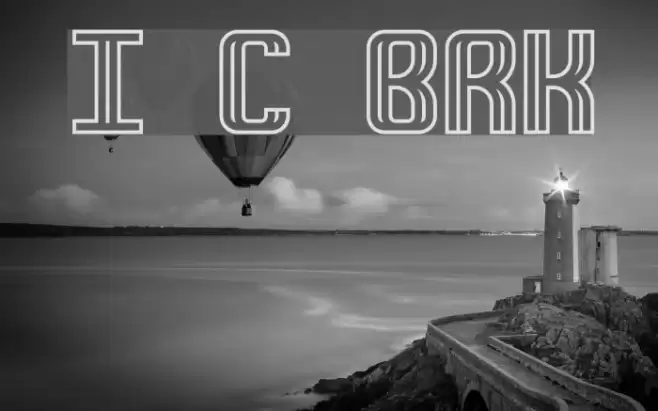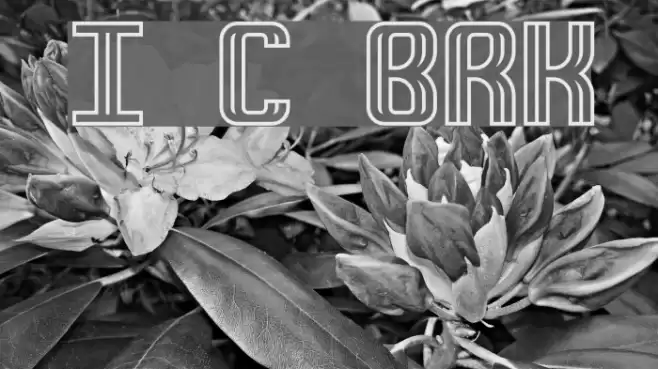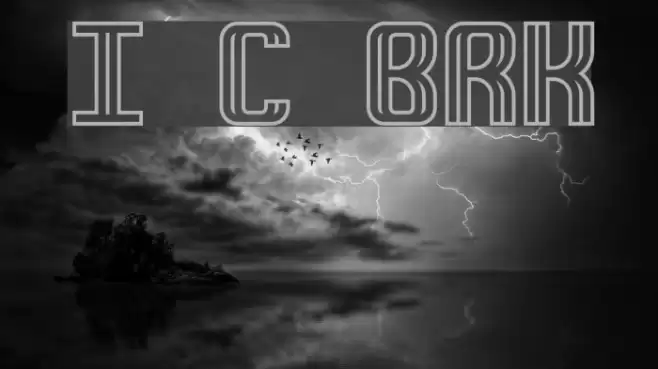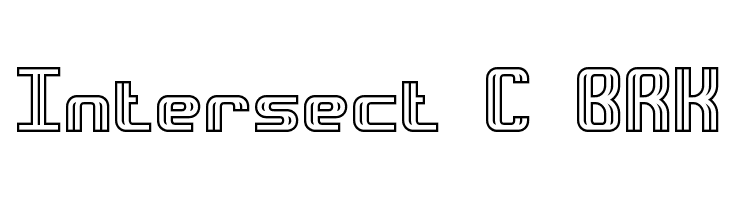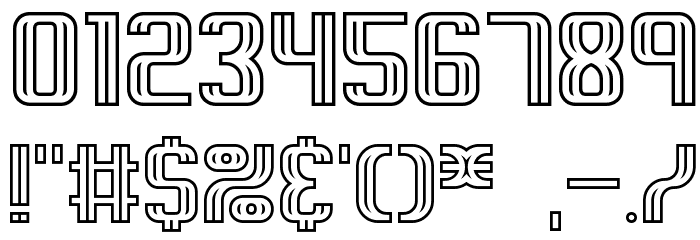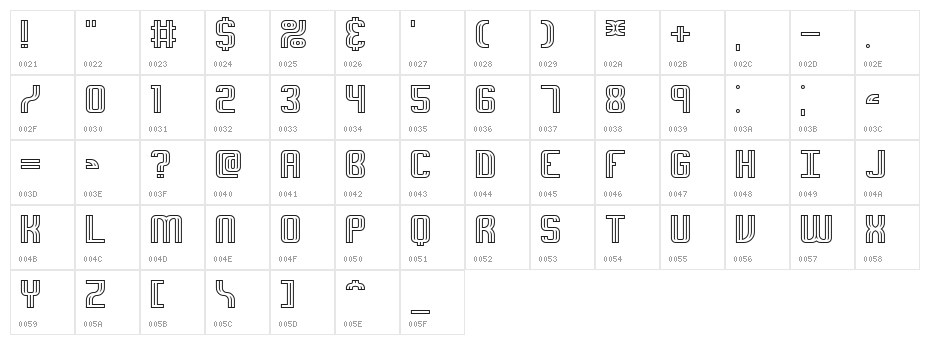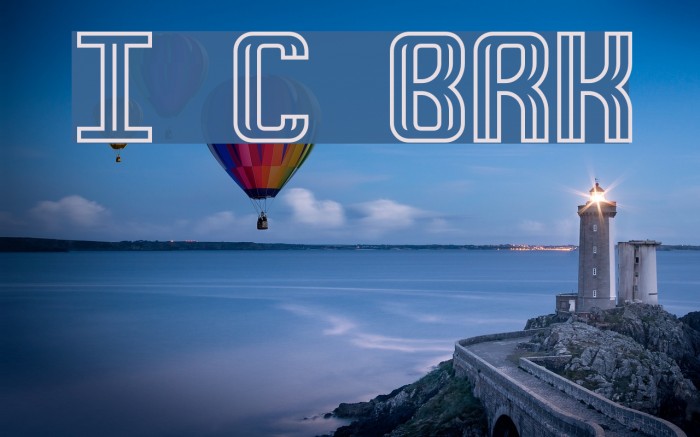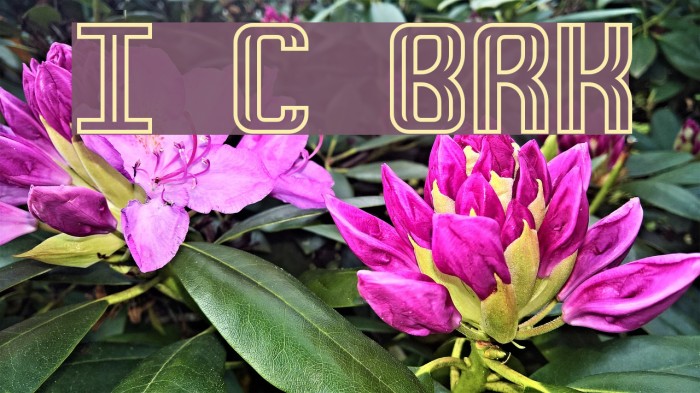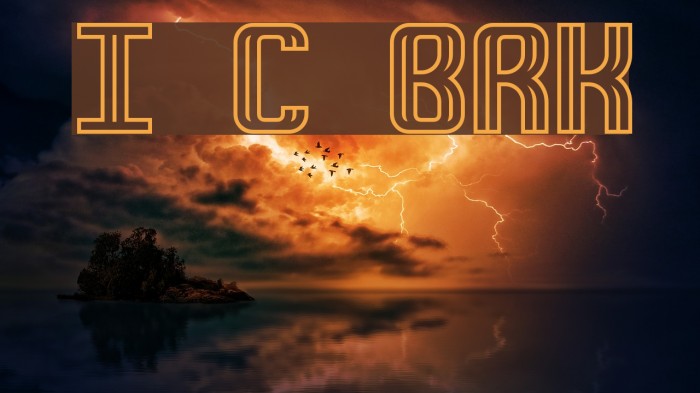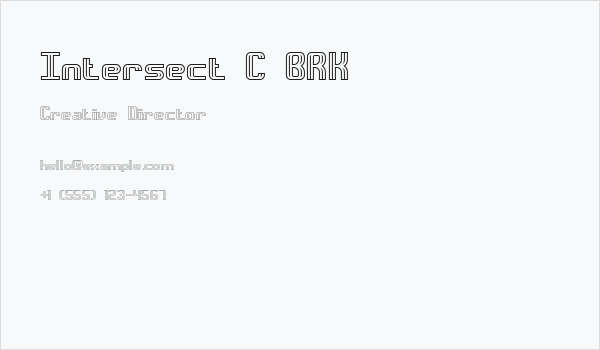
Intersect C BRK Font
Intersect C BRK Description
This font features a unique, futuristic design with a double-line structure that creates a sense of depth and dimension. The uppercase and lowercase letters maintain a consistent geometric style, characterized by sharp angles and clean lines. The numerals and special characters follow the same aesthetic, ensuring a cohesive look across all glyphs. This font's open, outlined design gives it a light and airy feel, making it stand out in any design project. Its modern and innovative appearance is perfect for projects that require a bold statement.
A futuristic, double-line font with a geometric and modern design from Outline fonts.
- Proposed Projects: Ideal for technology branding, sci-fi themed designs, posters, and digital media.